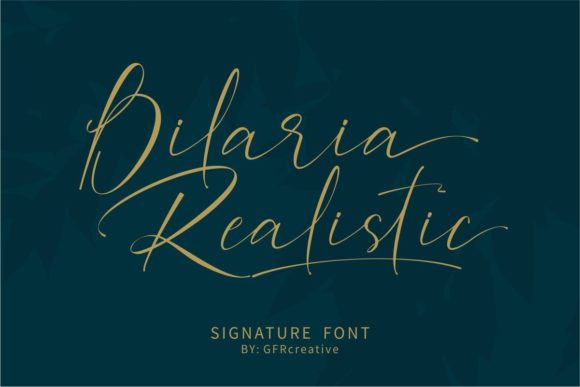
Bilaria Realistic Font: Elevate Your Designs with Elegance and Sophistication
In the world of typography, fonts play a crucial role in conveying the tone and personality of a design. Among the numerous font styles available, script fonts have gained immense popularity for their elegance and sophistication. One such font that has caught the attention of designers and typography enthusiasts is the Bilaria Realistic Font. In this article, we’ll delve into the features, benefits, and uses of this lovely and delicate script font.
What is Bilaria Realistic Font?
Bilaria Realistic is a beautifully crafted script font that exudes elegance and class. This font is particularly designed for those who need a refreshing and stunning look to their designs. With its delicate strokes and intricate details, Bilaria Realistic is perfect for creating sophisticated and eye-catching designs.
Key Features of Bilaria Realistic Font
- Elegant and Delicate: The font boasts a lovely and delicate script style that adds a touch of sophistication to any design.
- Refreshing Look: Bilaria Realistic is designed to provide a refreshing look to your designs, making it perfect for projects that require a unique and eye-catching typography.
Usage and Applications of Bilaria Realistic Font
Bilaria Realistic is a versatile font that can be used in a variety of design projects, including:
- Logo Design: The font’s elegant and sophisticated style makes it perfect for logo design, especially for luxury brands, fashion labels, and high-end businesses.
- Wedding and Event Design: Bilaria Realistic is ideal for creating stunning wedding invitations, event posters, and other design materials that require a touch of elegance.
- Packaging Design: The font’s delicate and intricate details make it suitable for packaging design, particularly for luxury products and premium brands.
- Digital Design: Bilaria Realistic can be used in digital design projects, such as website headers, social media graphics, and email marketing campaigns.
Benefits of Using Bilaria Realistic Font
Using Bilaria Realistic Font offers several benefits, including:
- Unique and Eye-Catching Designs: The font’s elegant and delicate style allows you to create unique and eye-catching designs that stand out from the crowd.
- Versatility: Bilaria Realistic is a versatile font that can be used in various design projects, making it a valuable addition to your font library.
Tips for Using Bilaria Realistic Font
To get the most out of Bilaria Realistic Font, here are some tips to keep in mind:
- Pair it with Simple Backgrounds: Bilaria Realistic looks best on simple backgrounds, allowing the font to take center stage.
- Experiment with Colors: Try pairing the font with different colors to create a unique and eye-catching design.
- Use it for Headings and Titles: Bilaria Realistic is perfect for headings and titles, adding a touch of elegance and sophistication to your design.
- Don’t Overuse it: Use the font judiciously, as overusing it can make your design look cluttered and overwhelming.
In conclusion, Bilaria Realistic Font is a stunning script font that offers elegance, sophistication, and versatility. With its PUA encoding, delicate strokes, and intricate details, this font is perfect for designers and typography enthusiasts looking to elevate their designs. Whether you’re working on a logo design, wedding invitation, or packaging design, Bilaria Realistic is sure to impress.
Final Thoughts